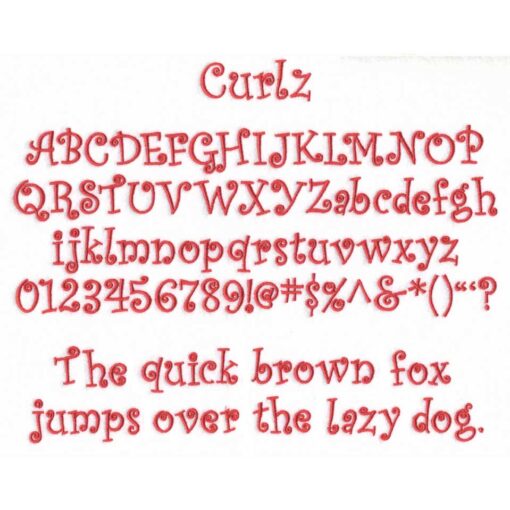
Resizable fanciful, decorative, curly serif machine embroidery font. Includes uppercase, lowercase, numbers and available punctuation.This is an object-based BX keyboard alphabet file and requires Embrilliance Essentials.
Manually digitized (not auto-punched) by Lindee G Embroidery using high-end professional software.